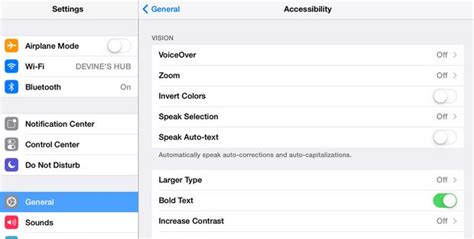
Mastering IOS Bold Font Themes For A Better Experience
Mastering iOS Bold Font Themes for a Better Experience
Hey everyone! Are you tired of your iPhone or iPad looking just like everyone else’s? Do you find yourself squinting at tiny text, wishing for a bit more visual pop? Well, guys , you’ve landed in the right place! We’re diving deep into the world of iOS bold font themes and how they can totally transform your device’s interface. This isn’t just about making things look cooler; it’s about making your phone more accessible , more personal , and frankly, much more enjoyable to use. We’re talking about taking control of your device’s aesthetics and enhancing your daily interactions, from reading emails to browsing your favorite apps. Imagine opening your phone and everything just stands out – clearer, crisper, and perfectly suited to your preferences. That’s the power of a well-implemented bold font theme on iOS.
For many of us, our iOS devices are extensions of ourselves. We spend hours every day interacting with them, so why settle for a generic look and feel? The standard iOS font, while clean and modern, might not be everyone’s cup of tea, especially for those who prefer a stronger visual presence or have specific visual needs. This article is your ultimate guide to understanding, activating, and even optimizing bold fonts on iOS . We’ll explore not only how to toggle that simple ‘Bold Text’ switch in settings but also delve into the nuances of how these changes impact your entire user experience. From the readability of your messages to the clarity of app interfaces, a bold font theme can make a surprisingly significant difference. We’ll cover everything you need to know to truly master this powerful customization option, ensuring your iPhone or iPad doesn’t just look great, but feels great to use. Get ready to give your iOS device a fresh, bold new personality that’s uniquely you !
Why Choose a Bold Font Theme for Your iOS Device?
Choosing an iOS bold font theme isn’t just a stylistic choice; it’s a practical decision that can significantly enhance your daily interaction with your device. First and foremost, let’s talk about readability . For many users, especially those with mild vision impairments, or even just in specific lighting conditions, the standard font weight can be a bit of a strain. By enabling bold text on iOS , you immediately increase the contrast and thickness of the letters, making them much easier to discern against various backgrounds. This means less squinting, less eye strain, and a more comfortable reading experience whether you’re catching up on news articles, responding to emails, or scrolling through social media. Think about those moments when you’re outside in bright sunlight, or in a dimly lit room; a bold font theme can be a game-changer, ensuring that important information is always clear and legible. It’s a simple tweak that yields profound benefits for visual comfort and clarity across the entire operating system, from notification banners to the text within your favorite third-party applications. The added visual weight can help text pop off the screen, making crucial elements like button labels and navigation links instantly recognizable and easier to tap. This focus on immediate clarity is a core reason why so many guys opt for this powerful accessibility feature, transforming their everyday phone usage.
Beyond just readability, selecting a bold font theme for your iOS device introduces a powerful layer of accessibility and personalization . Apple has always been at the forefront of accessibility features, and the option to enable bold text is a prime example of their commitment to making technology usable for everyone. For individuals with various visual challenges, or even just older eyes, the default light font can be difficult to process quickly. Bold text mitigates this by providing a stronger visual anchor for each character, aiding in recognition and reducing cognitive load. But it’s not just about accessibility; it’s also about making your device truly yours . In a world where millions use identical iPhones, minor customizations like a bold font theme allow you to inject a bit of your personality into your digital companion. It’s a subtle yet impactful way to differentiate your device, giving it a more assertive and pronounced look that aligns with your personal taste. Some might find the standard font too delicate, preferring the robust and confident appearance that bold text provides. This sense of ownership and bespoke tailoring contributes significantly to a more satisfying and enjoyable user experience. It’s about empowering you , the user, to mold the device to your needs and preferences, rather than conforming to a one-size-fits-all approach. Whether your primary motivation is enhanced clarity, improved accessibility, or simply a bolder aesthetic, the choice to embrace an iOS bold font theme is a smart one that puts your user experience first.
Enhancing User Experience with iOS Bold Fonts
When we talk about enhancing user experience with iOS bold fonts , we’re really diving into how this simple setting change can utterly transform the way you interact with your iPhone or iPad on a moment-to-moment basis. Think about it: every single piece of information, every button, every menu option, is presented through text. By making that text bold , you’re not just making it bigger; you’re making it stronger , more pronounced , and ultimately, more effective at conveying its message. This has a direct impact on the speed and efficiency with which you can navigate your device. Imagine glancing at a notification banner – with standard font, it might take a fraction of a second longer for your brain to process the lighter text, especially if you’re multi-tasking or just quickly checking your phone. But with a bold font theme , that text jumps out at you, allowing for instantaneous comprehension. This translates to quicker responses, less mental effort, and a smoother flow throughout your day. It’s the kind of subtle improvement that you might not even consciously notice at first, but after a few hours of using a bold interface, going back to the default can feel surprisingly diminished or understated . The visual weight of the bold text guides your eyes more effectively, helping you to pinpoint key information or interactive elements without unnecessary searching or re-reading. This efficiency is a massive win for productivity and overall user satisfaction, making every tap and swipe feel more deliberate and impactful. For us tech enthusiasts and everyday users alike, optimizing this fundamental visual element is a clear path to a more engaging and less fatiguing digital life, solidifying the importance of a well-chosen bold font theme for iOS.
Furthermore, the psychological impact of using bold fonts on iOS cannot be overstated. A bolder, more assertive typeface can evoke a sense of confidence and clarity in the design. For many, the standard thin font can sometimes feel a bit too delicate or even ephemeral, particularly on larger screens where it can seem lost in the vastness of the display. A bold font theme , however, gives the interface a more grounded and robust feel. It communicates information with a sense of authority and importance , which can make the entire operating system feel more substantial and reliable. This isn’t just about making text easier to see; it’s about making the entire digital environment feel more secure and understandable . When you open an app and the menu options are clearly defined with bold text , there’s less ambiguity, less room for error, and a greater sense of control. This can reduce frustration and enhance the overall emotional connection you have with your device. Even in the context of reading long-form content, such as articles in Safari or books in Apple Books, the sustained visual clarity provided by bold text can help maintain focus and prevent fatigue over extended periods. It creates a more inviting and less intimidating reading experience, encouraging deeper engagement with the content. So, when we talk about enhancing user experience with iOS bold fonts , we’re truly discussing a holistic improvement that touches upon visual comfort, navigational efficiency, and even the emotional resonance of your device, making it a truly indispensable customization for many iPhone users seeking a superior interaction. The subtle yet profound difference a bold font theme makes is something you really have to experience to appreciate its full impact on your daily tech life.
How to Activate and Customize Bold Fonts on iOS
Alright, guys , let’s get down to the nitty-gritty: how do you actually activate and customize these fantastic bold fonts on iOS ? Luckily, Apple has made it incredibly straightforward to enable the built-in Bold Text feature, and it doesn’t require any third-party apps or complex workarounds. This is a native setting designed for accessibility, but as we’ve discussed, its benefits extend far beyond that. To start, simply open your Settings app – you know, the gray icon with the gears. Once you’re in Settings, you’ll want to scroll down a bit until you find **